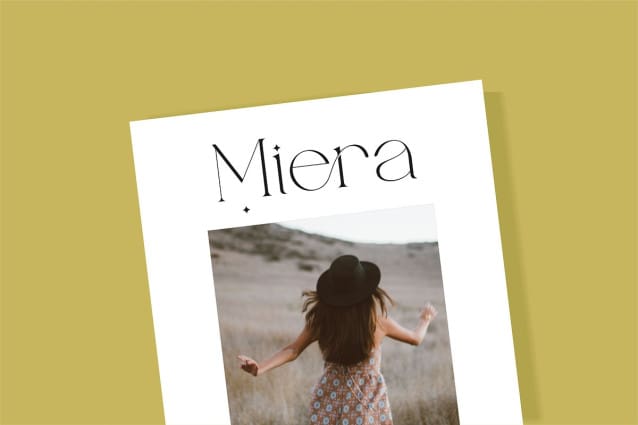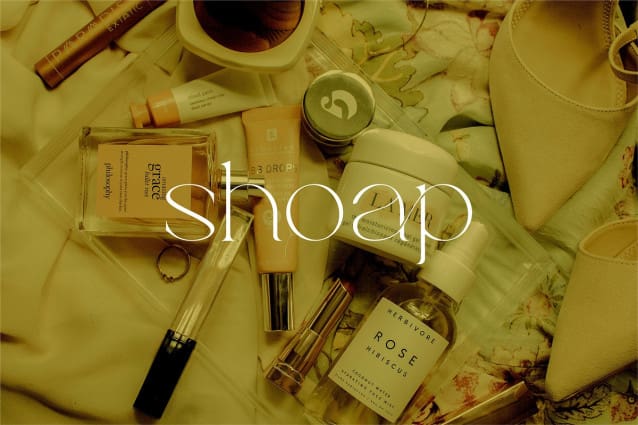
Brillant Font
Brillant Font is a stylish and modern serif font. With its stylish modern style, it has become a market favorite. We kept this font looking elegant, classy, ​​stylish. Brillant Font is a great choice for beauty, magazines, design, books, publications, branding, brand names, business cards, social media, luxury design, newspapers, branding and other projects. Brilliant Font is here to improve the quality of your designs.